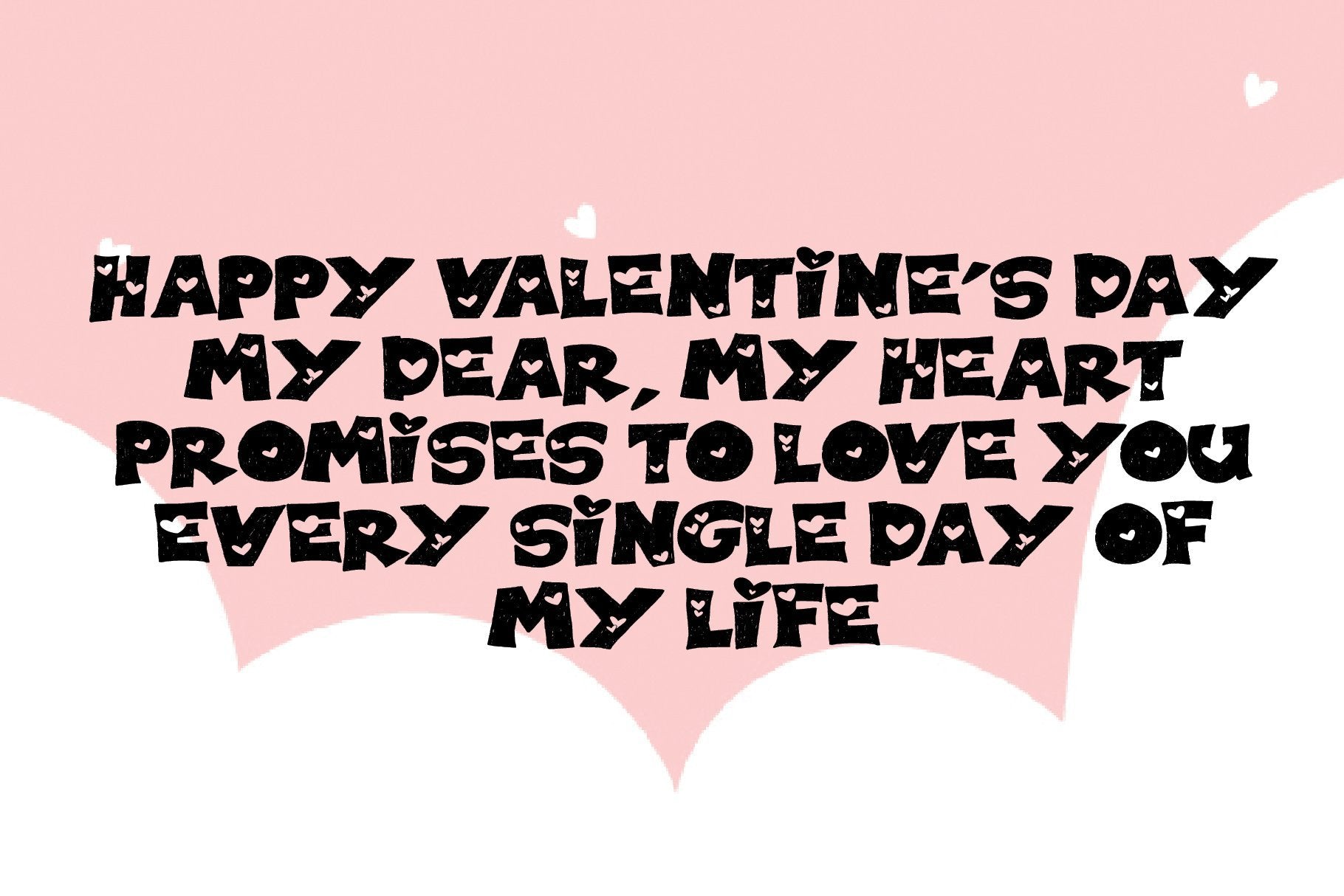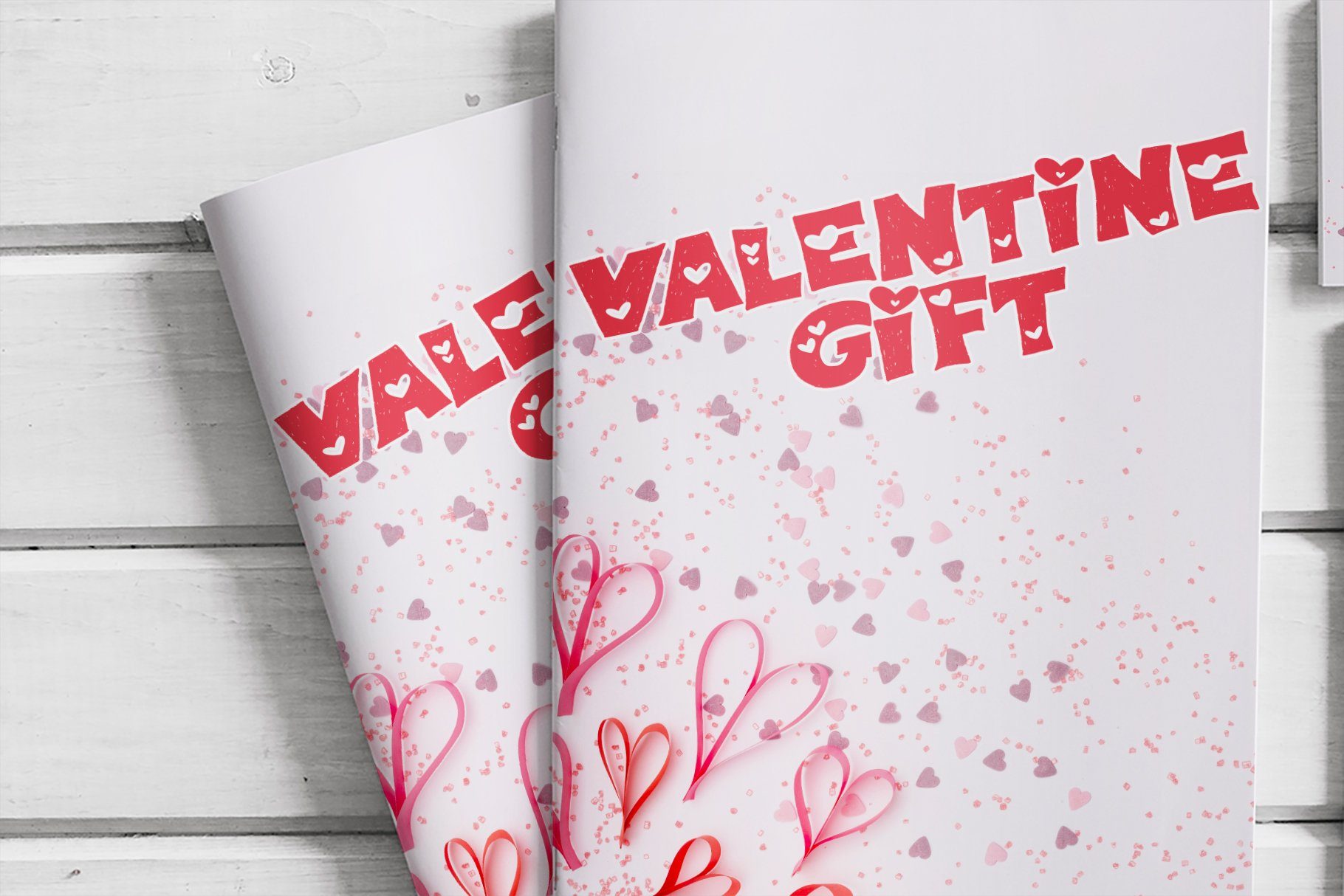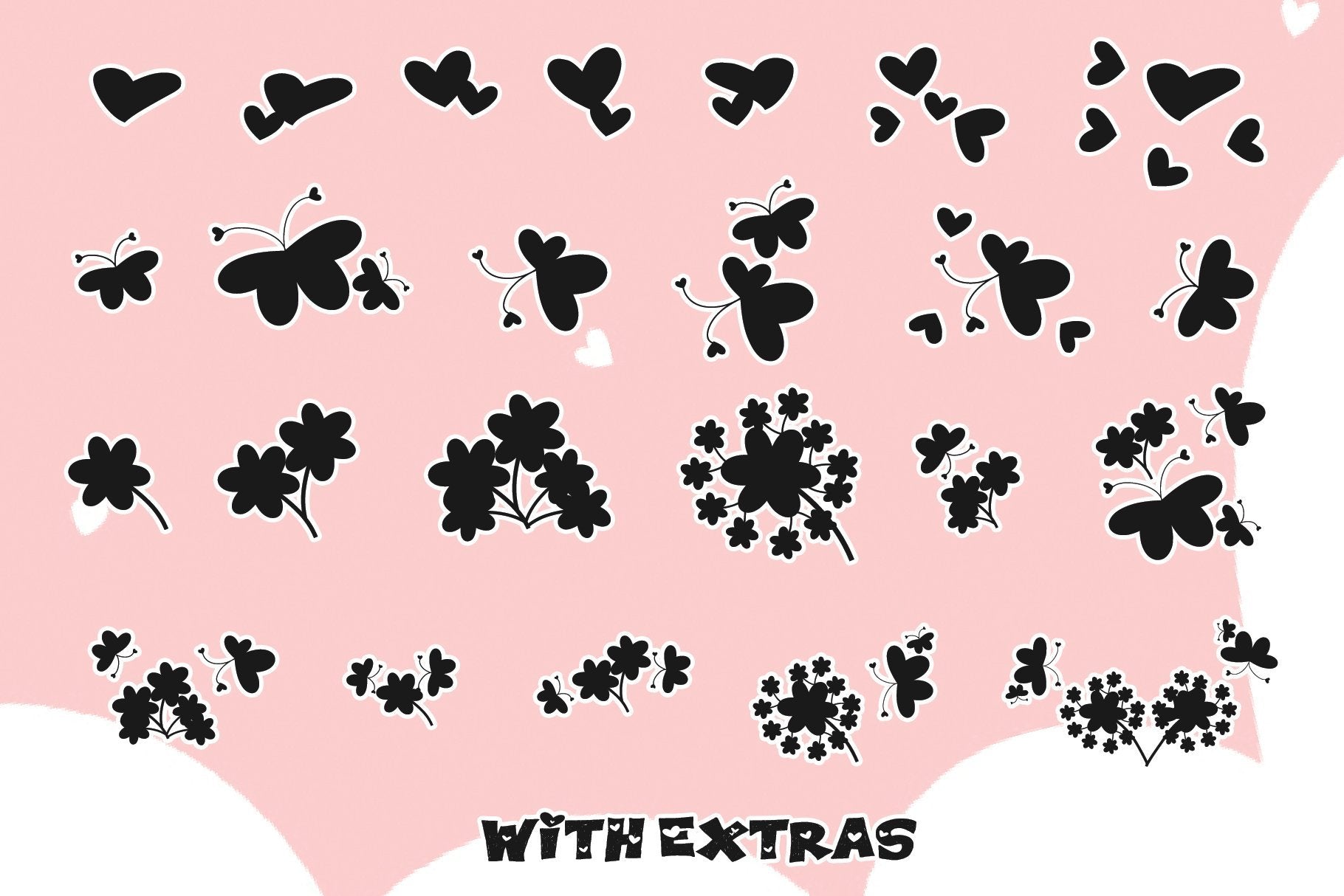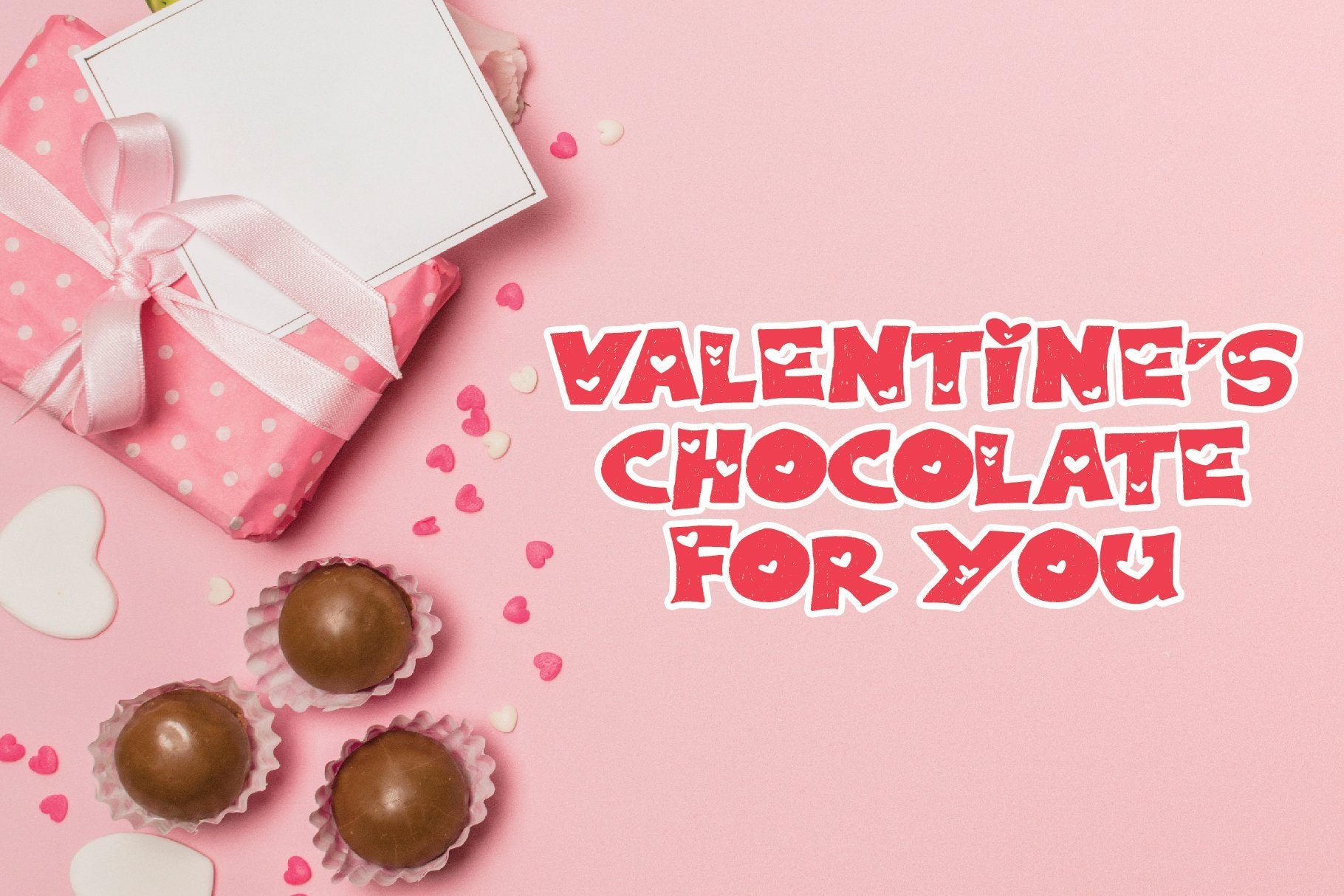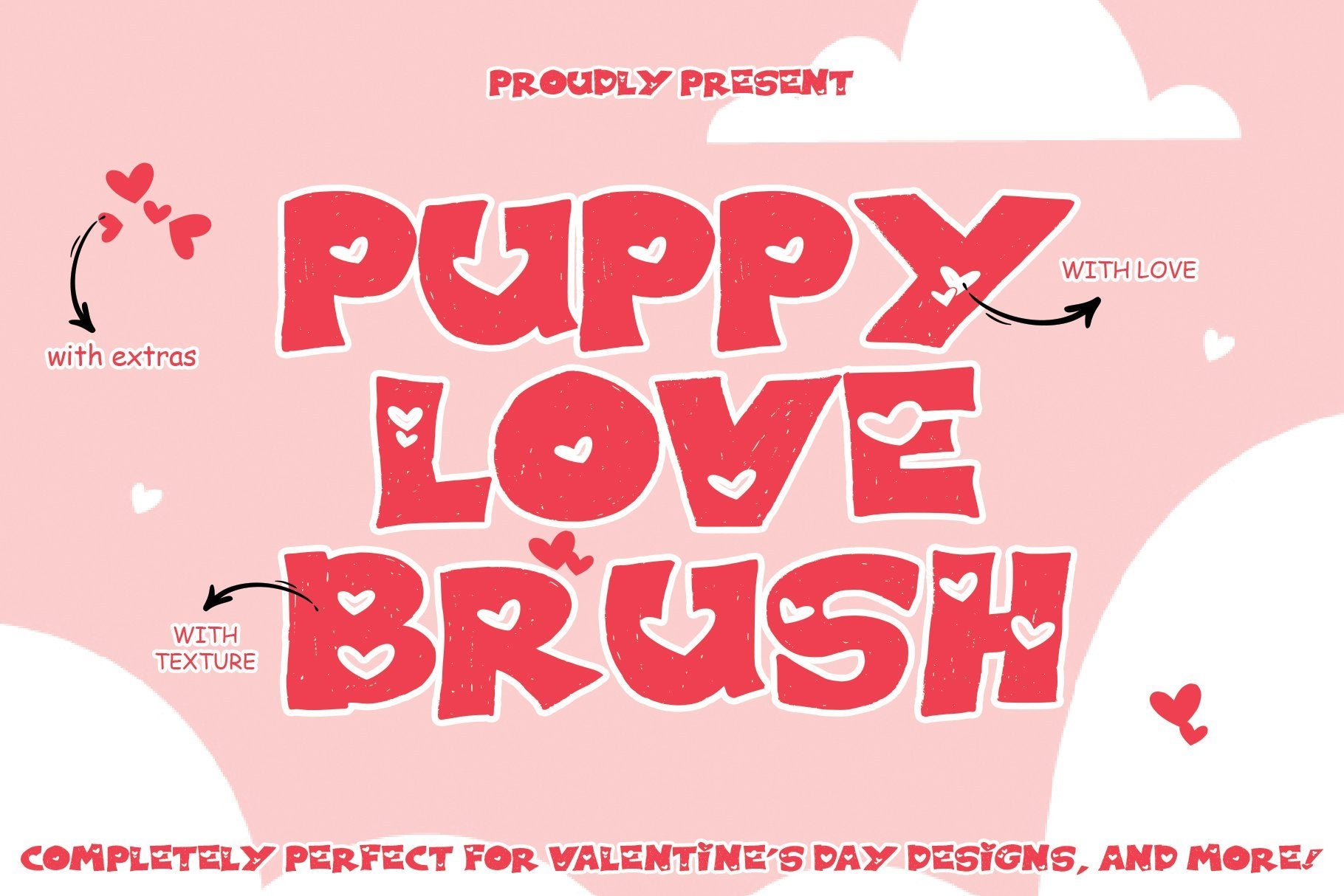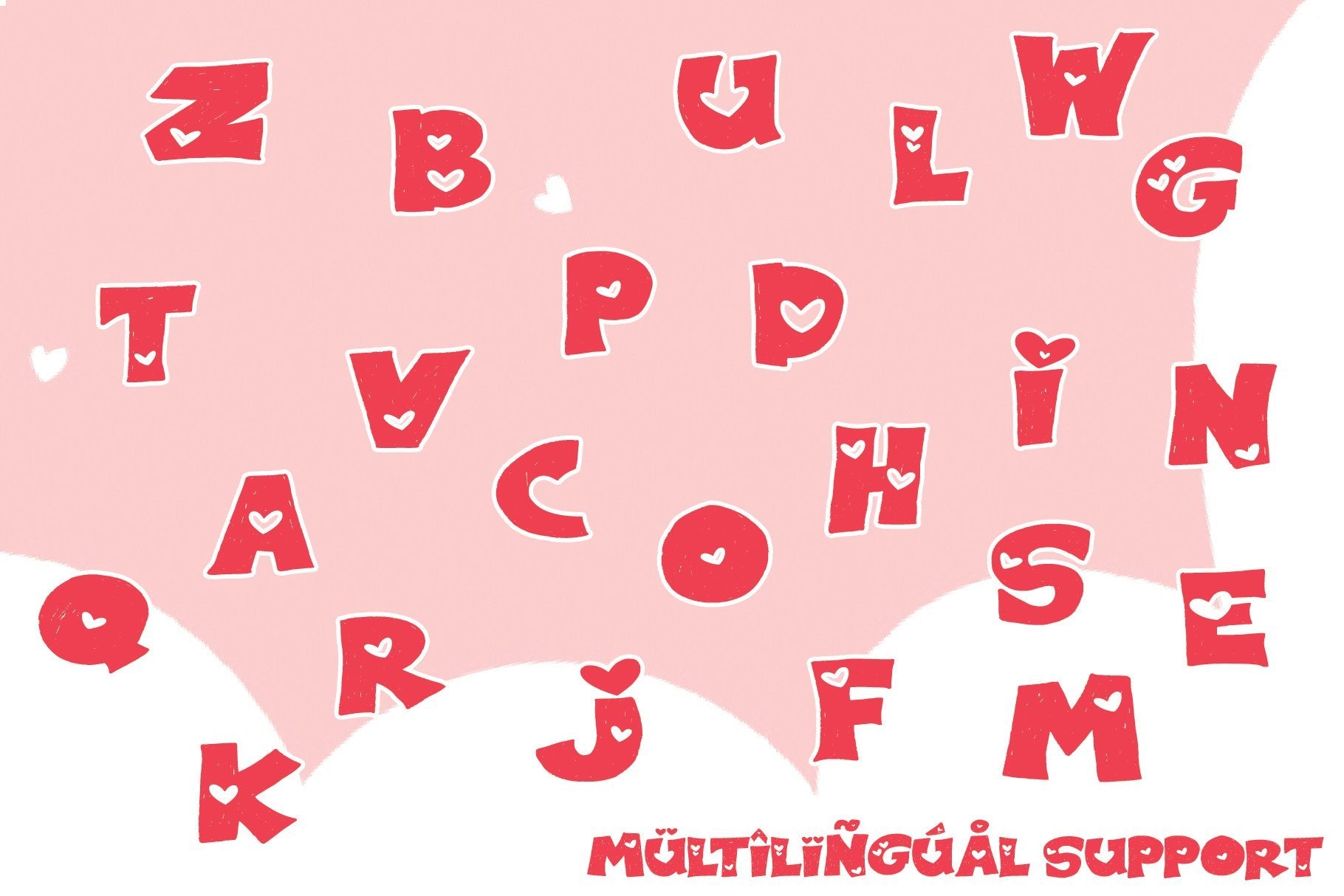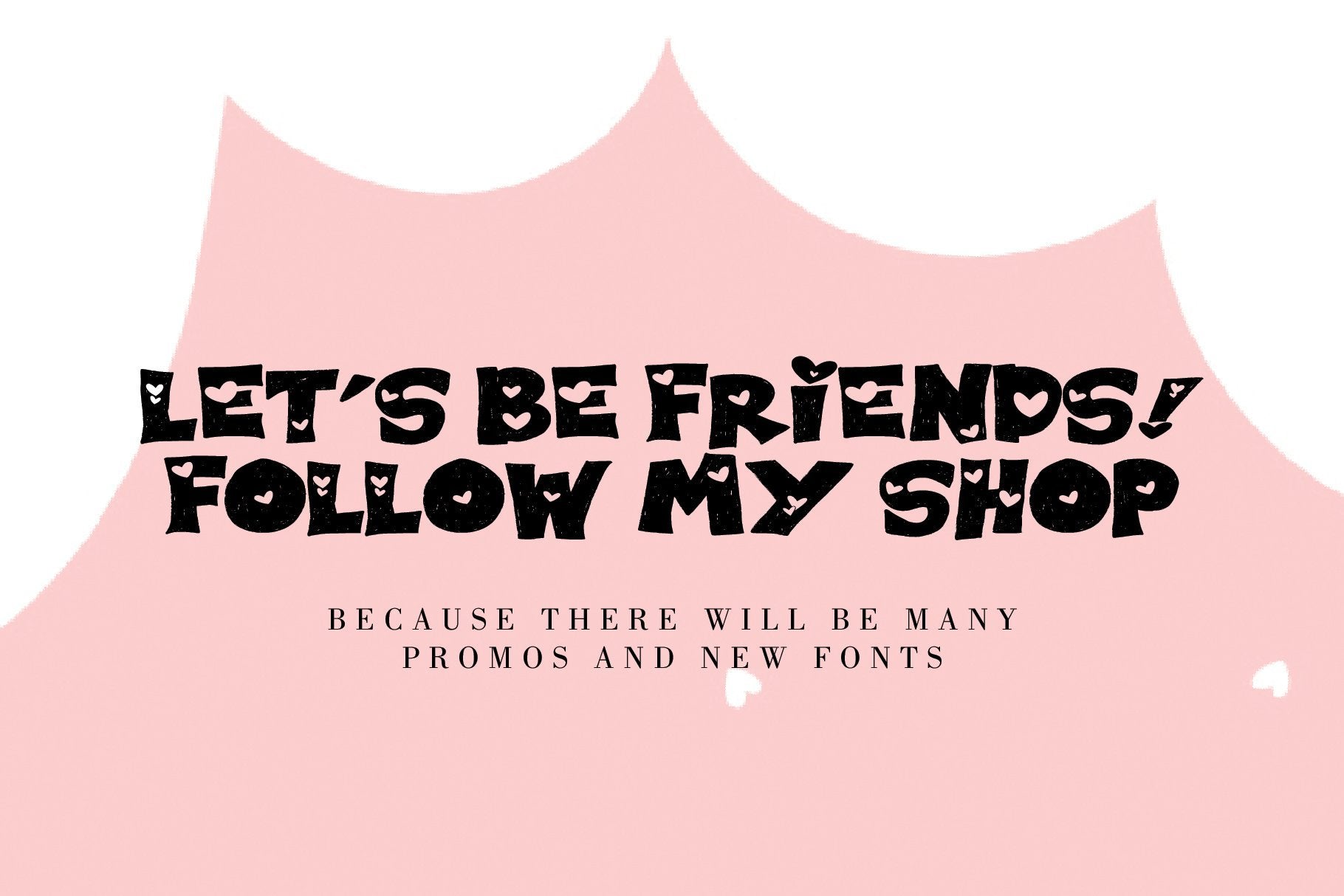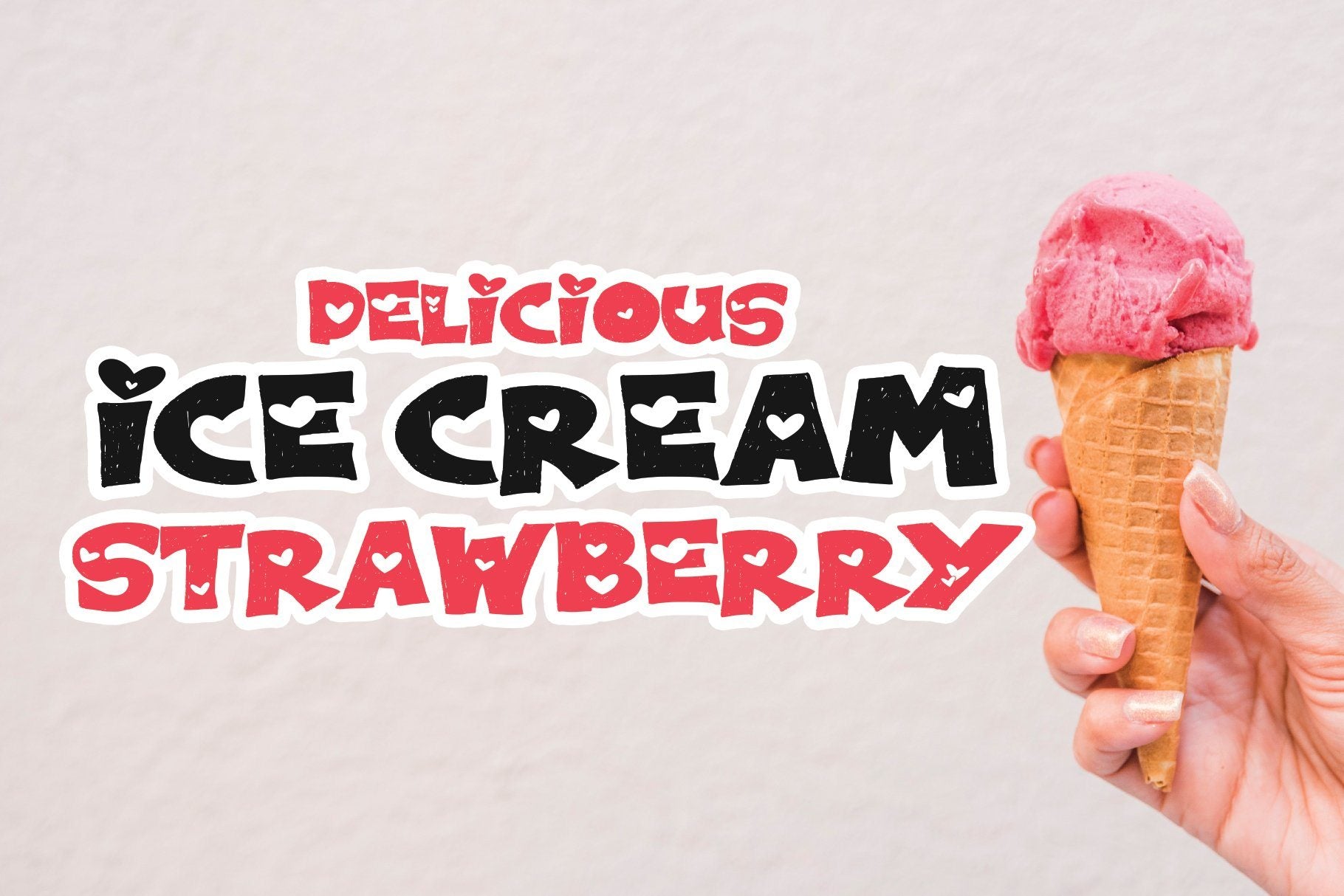
Introducing Puppy Love Brush, a new font inspired by a couple who is in love; illustrates the power of love that radiates strongly. completely perfect for Valentine’s Day designs, and more! What’s included: Works both on Mac & PC Simple installations With Extras Accessible in the Adobe Illustrator, Adobe Photoshop, Adobe InDesign, CorelDraw, even work on Microsoft Word. Support multilingual; ä ö ü Ä Ö Ü ß ¿ ¡ To access the alternate glyphs, you need a program that supports OpenType features such as Adobe Illustrator CS, Adobe Photoshop CC, Adobe Indesign, and CorelDraw. More information about how to access alternate glyphs, check out this link (http://goo.gl/ZT7PqK) To stay up to date for my latest job, follow me and let’s be friends because there will be many promos. Thanks for checking out my store, and feel free to get in touch if you have any questions!  don’t wait anymore, put it in your shopping basket 🙂 and follow me, because there will be many promos! Our other products : BEST SELLER REINDEER SNOWKY BRUSH GAMOS HERTINA JENNIE ANTIKA AURORA BLACK PINK SIGNATURE California Street BESTOWENS FAMILY